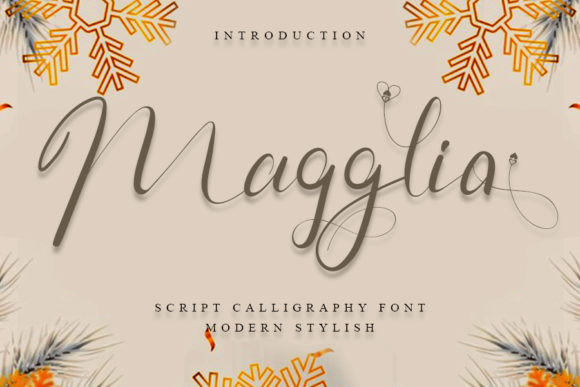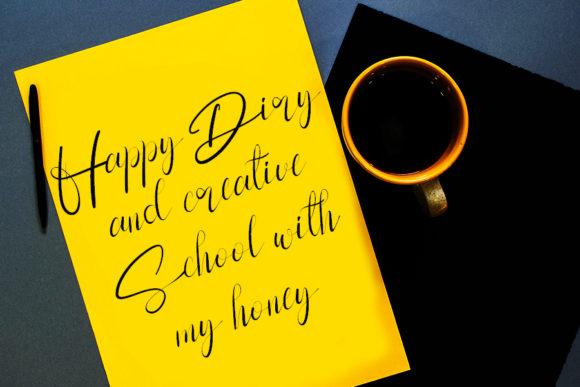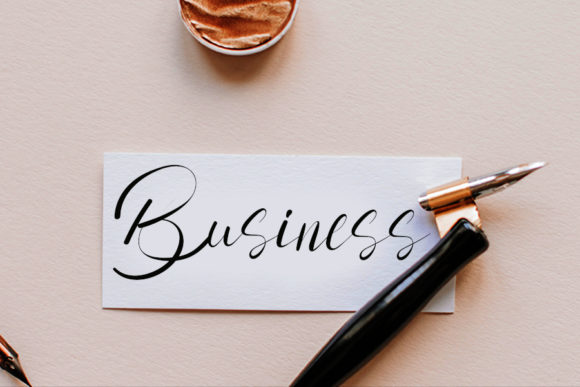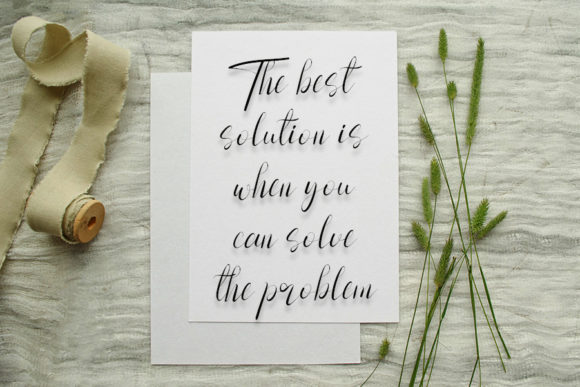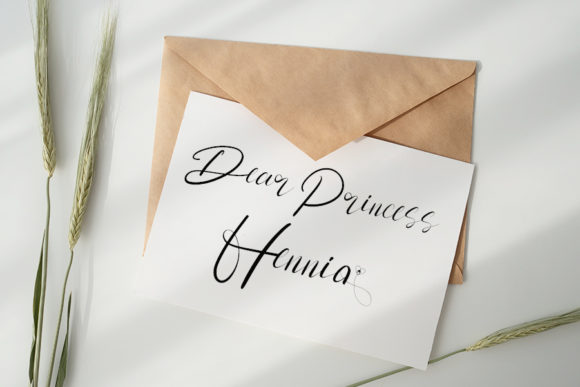
About Magglia Font
Magglia is a stylish script font that has bold letters and delicate swashes. This font is suitable for clothing design, apparel, t-shirts, YouTube designs, Facebook banners, logo designs, and other crafts so that your work is more innovative and charming.